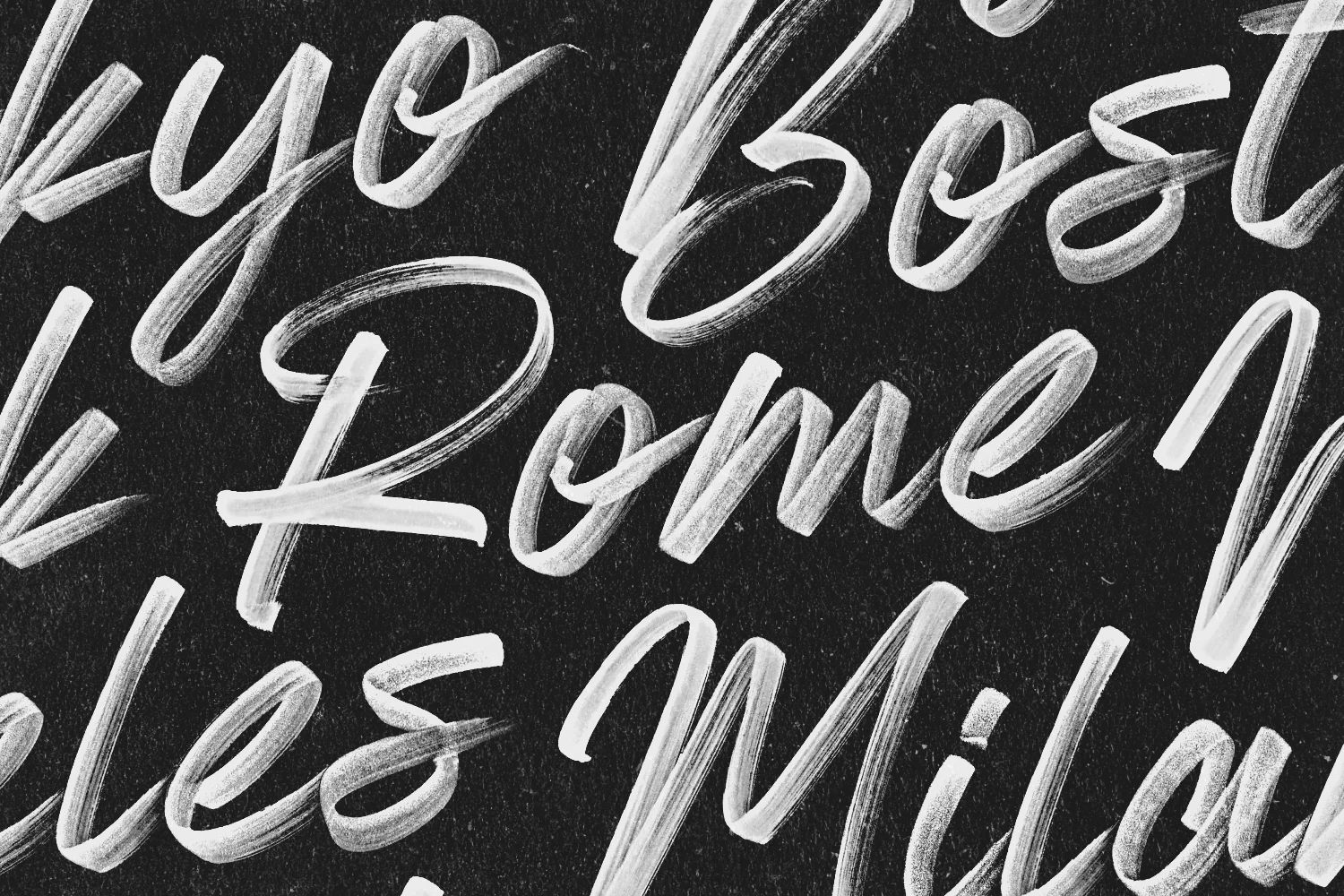
South Island is a typeface that looked authentically handwritten. Each character had to perfectly flow into the next and maintain a nice balance between variation and legibility. The typeface retains all the texture and grit of the original handwritten characters, making it especially powerful when used for large headers.
Inspired by the grotesque fonts of the 19th century, Parkson is a tall sans serif typeface of 7 weights along with italic and several outline versions. The contemporary typeface aims to be one of the world's best condensed collection of fonts. Designed for optimum legibility, its clean, geometric look is perfect for logotypes, headers, titles and brochures.
Inspired by the scribblings found in travel journals from early explorers, Point Blair is a script typeface that mimics natural handwriting and signature styles. The script font focuses on a free flow feel, with real pen texture and variance built into each character. To keep things looking natural, every character a-z and A-Z has an alternate available so that you can add variance to your text.
After months of development and planning, I am proud to introduce the Stay Gold Font Pack. With Stay Gold, you get two Opentype SVG fonts for the typical price of one. Each font takes on a life of its own, but they work great paired together which is why I didn't want to split them up.
Take your design game to the next level with a hyper realistic font that truly looks hand painted. Pure Heart uses brand new technology that makes way for more authentic looking fonts and is sure to grab the attention of customers and designers alike. Each letter was carefully painted dozens of times until deemed perfect, and then edited to get the texture absolutely perfect. Buy Pure Heart today and be on the cutting edge of new font technology.
Almonte goes above and beyond a typical font. Using OpenType-SVG technology, this font preserves all the high definition detail of the original handwritten letters. It truly looks realistic, and the difference compared to regular vector fonts is staggering. In an instant, you can produce eye catching text that looks like it was meticulously drawn by a professional hand letterer. I spent several months perfecting this font to get everything just right.
This bundle is a curated offering of many of my most popular fonts over the years. I wanted to include a little bit of every style, to give designers a well rounded arsenal of fonts. Modern, vintage, script, marker, handwritten etc... every style is covered!
Total Rage is a hyper realistic font full of hand painted letters that will take your design projects to a whole new level. This typeface is full of chaos and anger, and is great for magazines, billboards and website graphics. Total Rage uses the Opentype SVG format, making way for more authentic looking fonts and is sure to grab the attention of customers and designers alike.